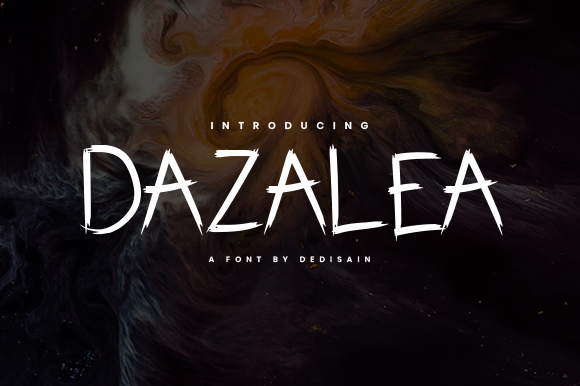
Introduction to Dazalea Font
Dazalea is a simple, yet memorable brush font that’s perfect for turning your design idea into an eye-catcher.
Dazalea is a simple, yet memorable brush font that’s perfect for turning your design idea into an eye-catcher!
Key Features of Dazalea Font